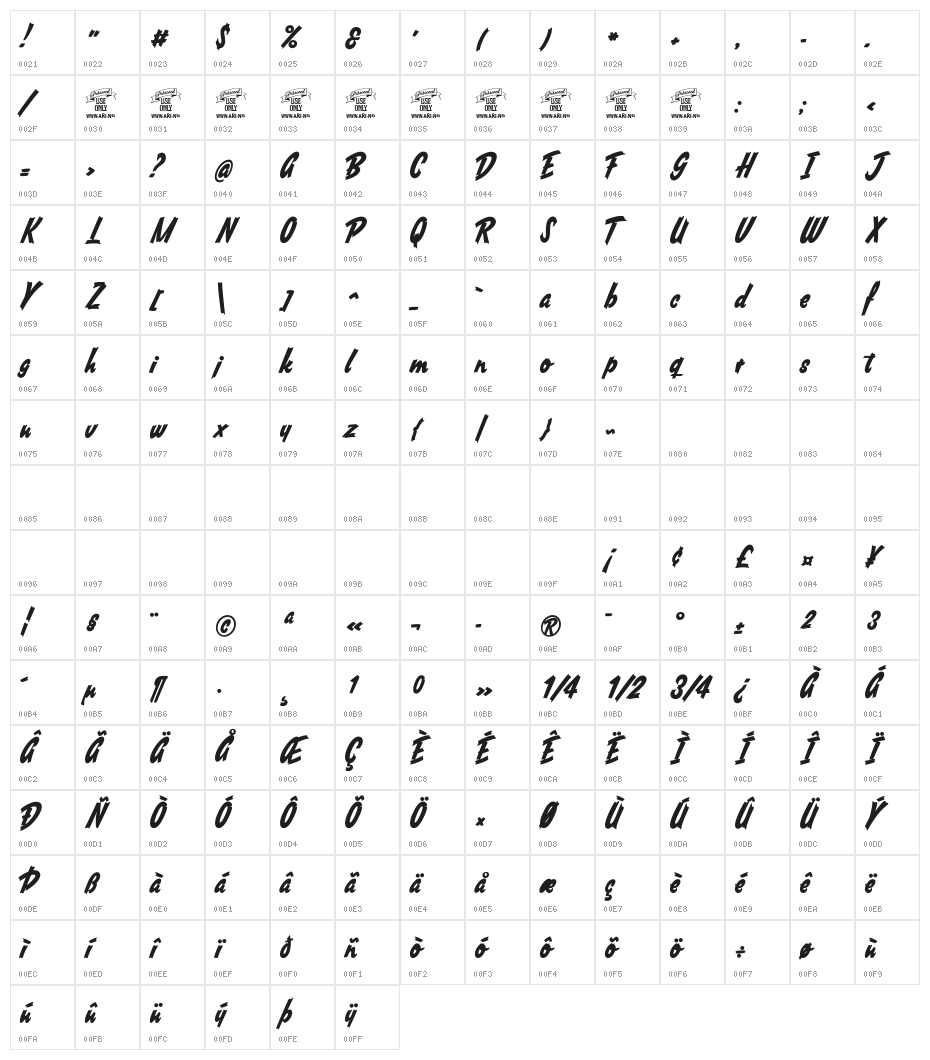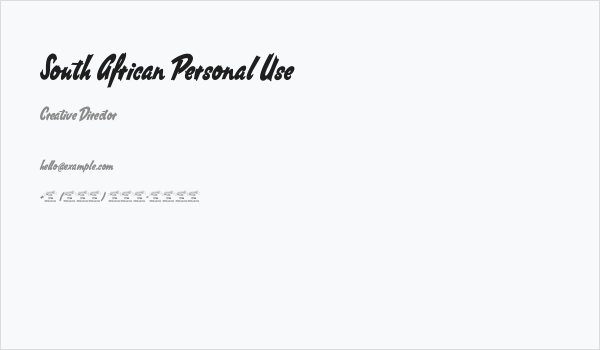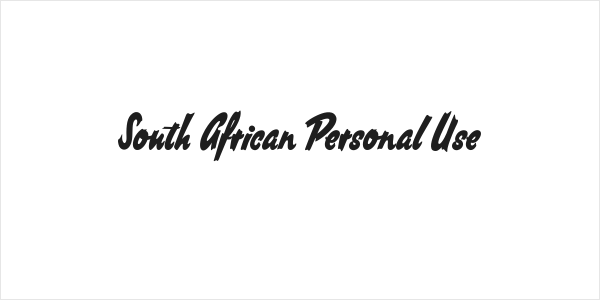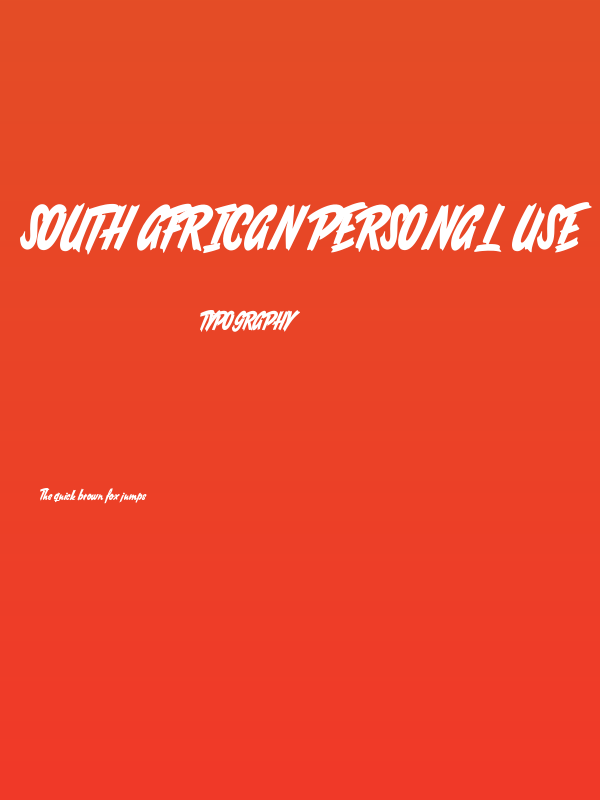
South African Personal Use Font
South African Personal Use Description
This font features a bold and dynamic script style with a strong presence. The characters are slanted, giving a sense of motion and energy, reminiscent of brush strokes. The uppercase letters are particularly striking with their exaggerated curves and sharp edges, while the lowercase letters maintain a consistent flow. The numbers and special characters follow the same energetic style, making them suitable for attention-grabbing designs. The overall appearance is both modern and expressive, ideal for projects that require a bold statement.